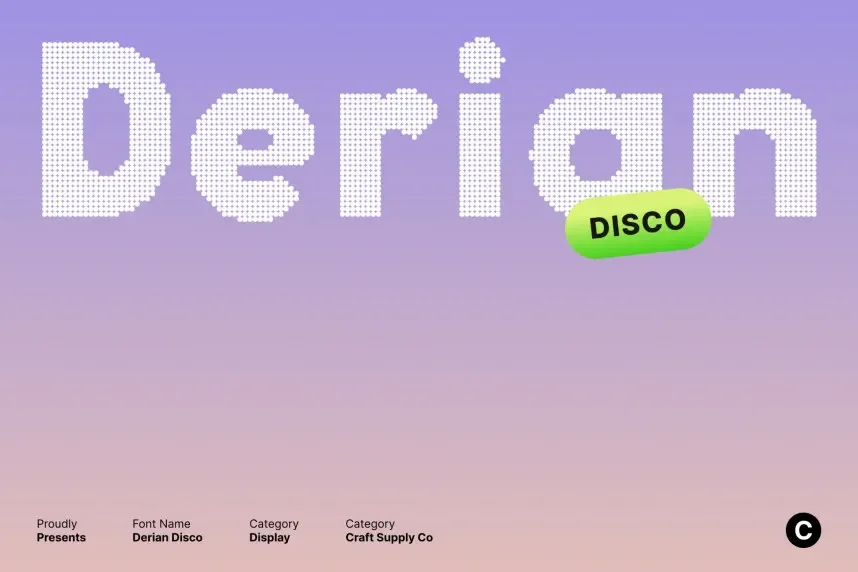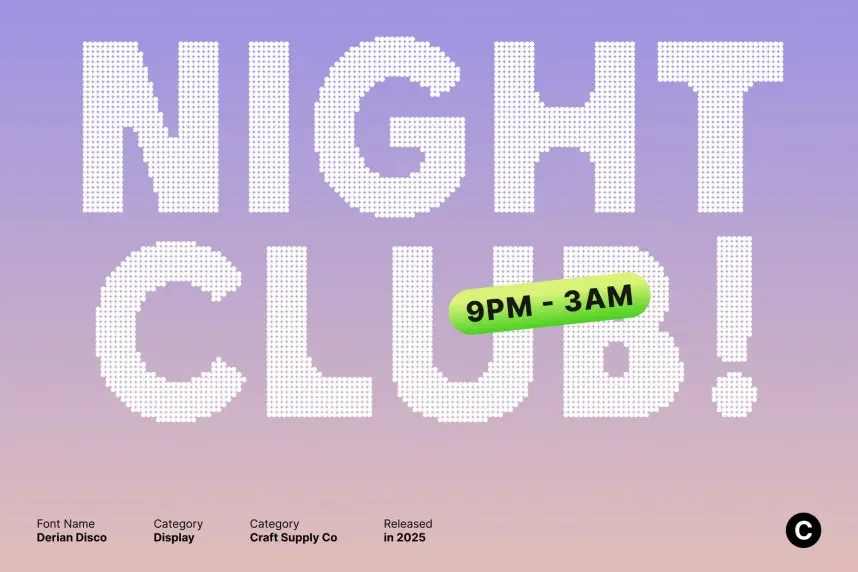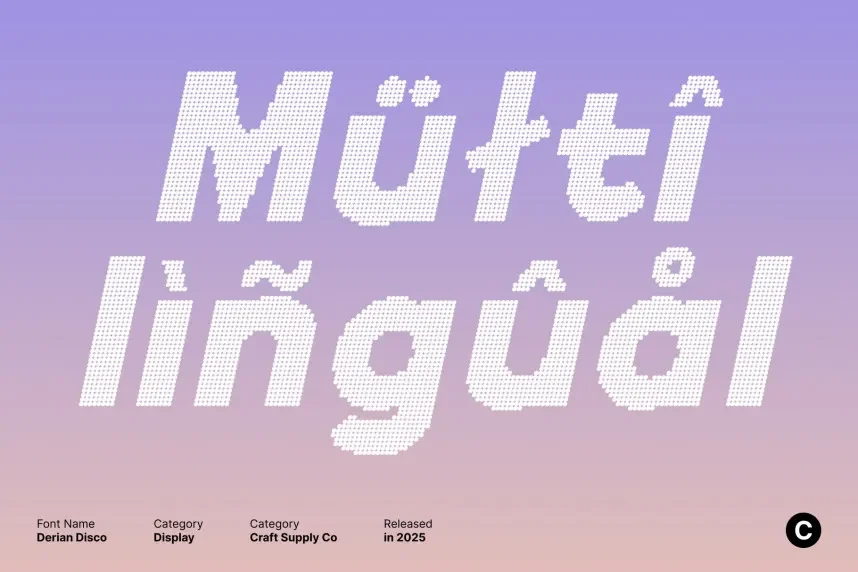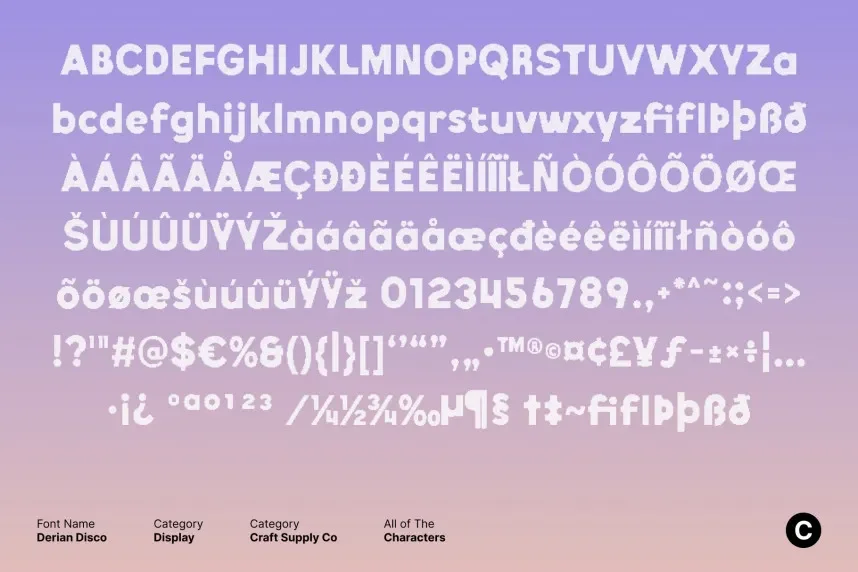
Derian Disco Font is a bold, groovy display typeface that channels the energy of the disco era. With its thick strokes and playful letterforms, it’s ideal for event promotions, music posters, and branding that need to make a statement.